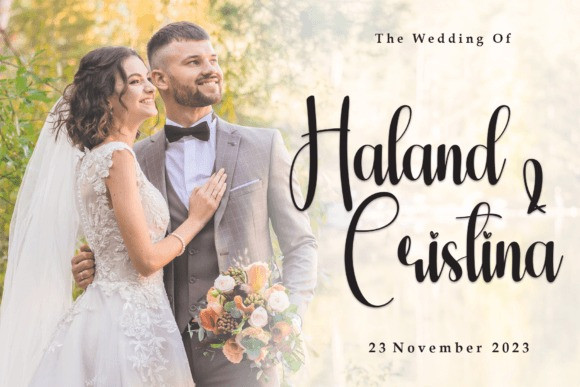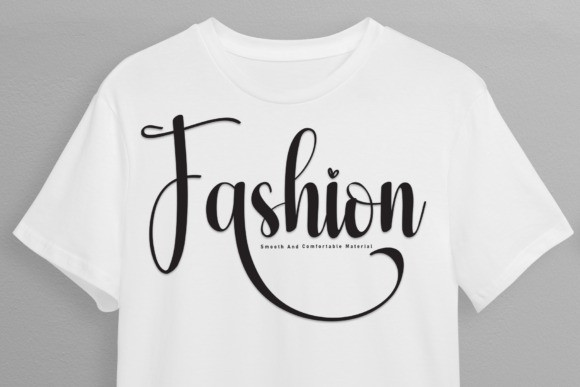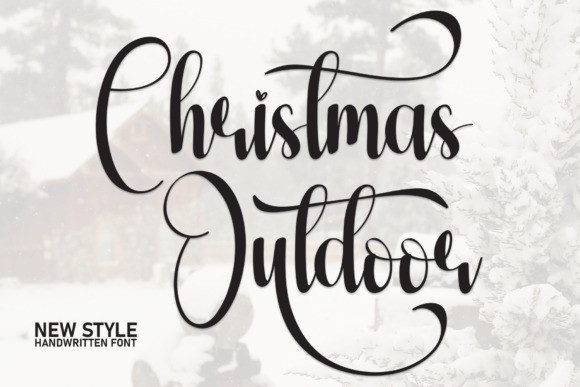
Christmas Outdoor Font
Christmas Outdoor Font is an enchanting handwritten font. This versatile script font has a wide spectrum of applications ranging from greeting cards to headlines and is guaranteed to add a romantic feel to your next project.